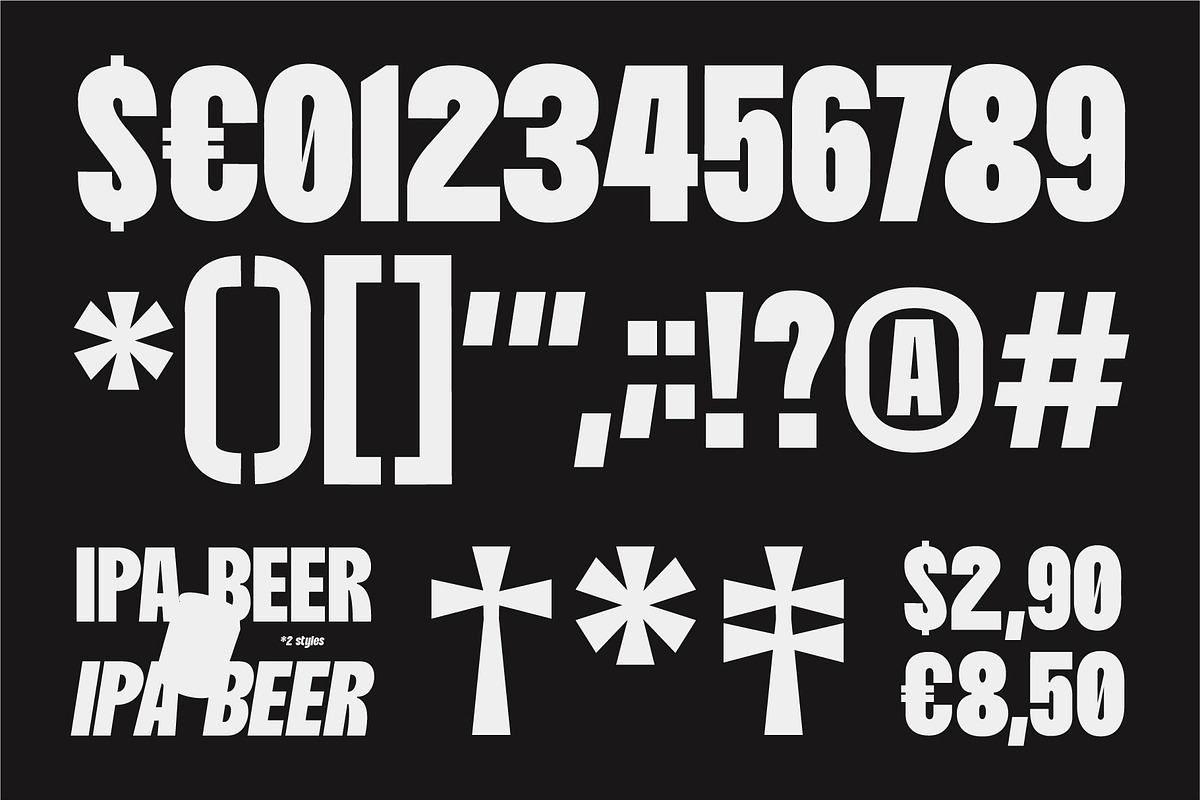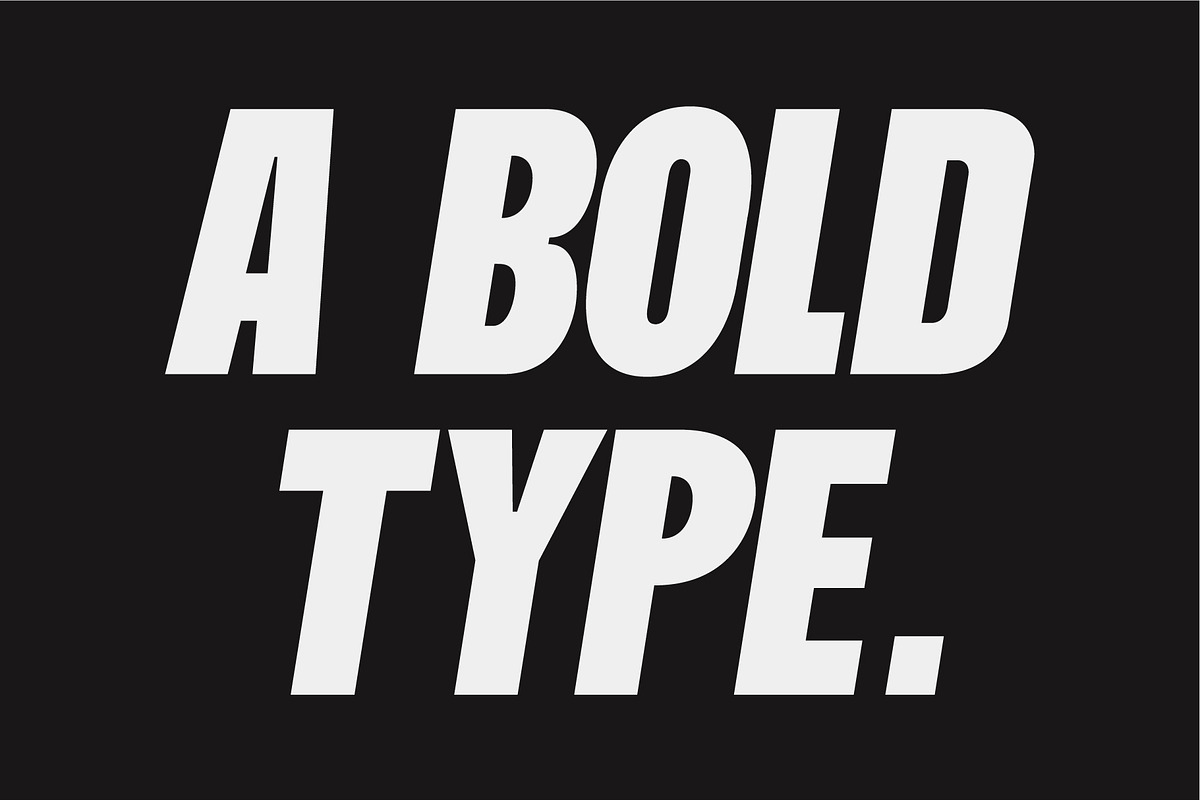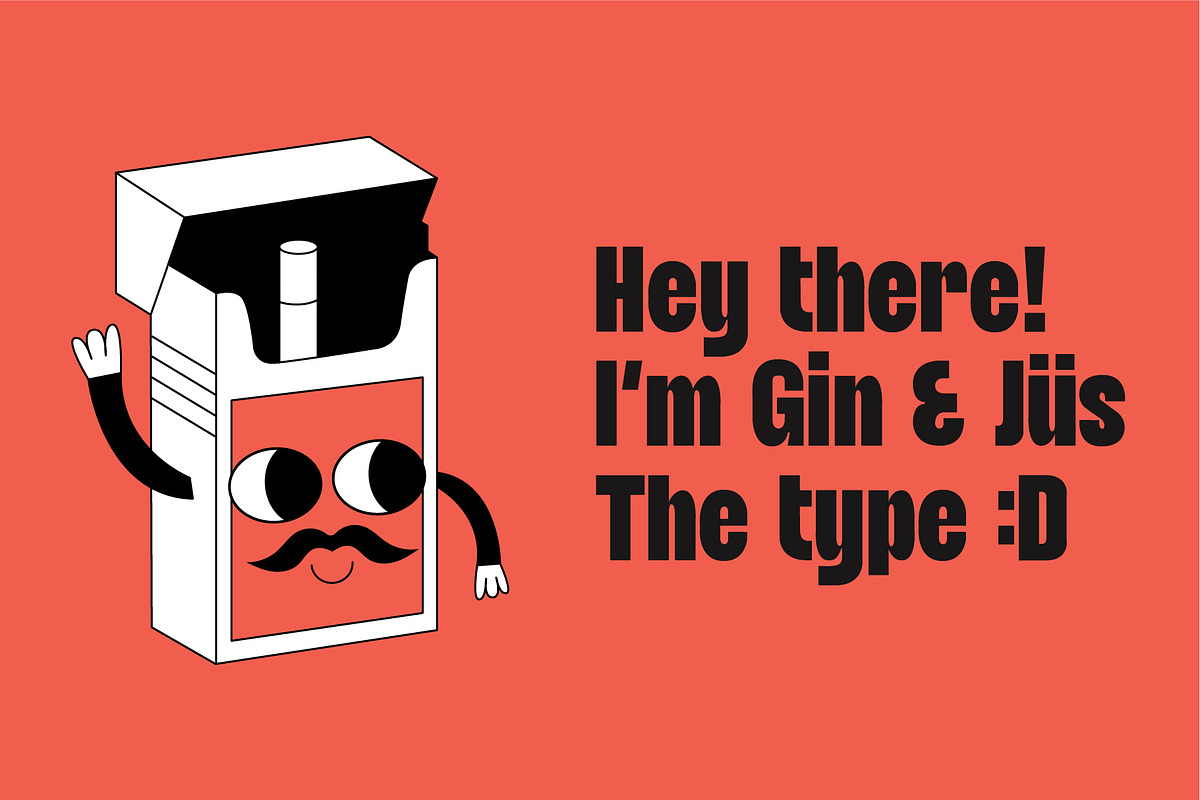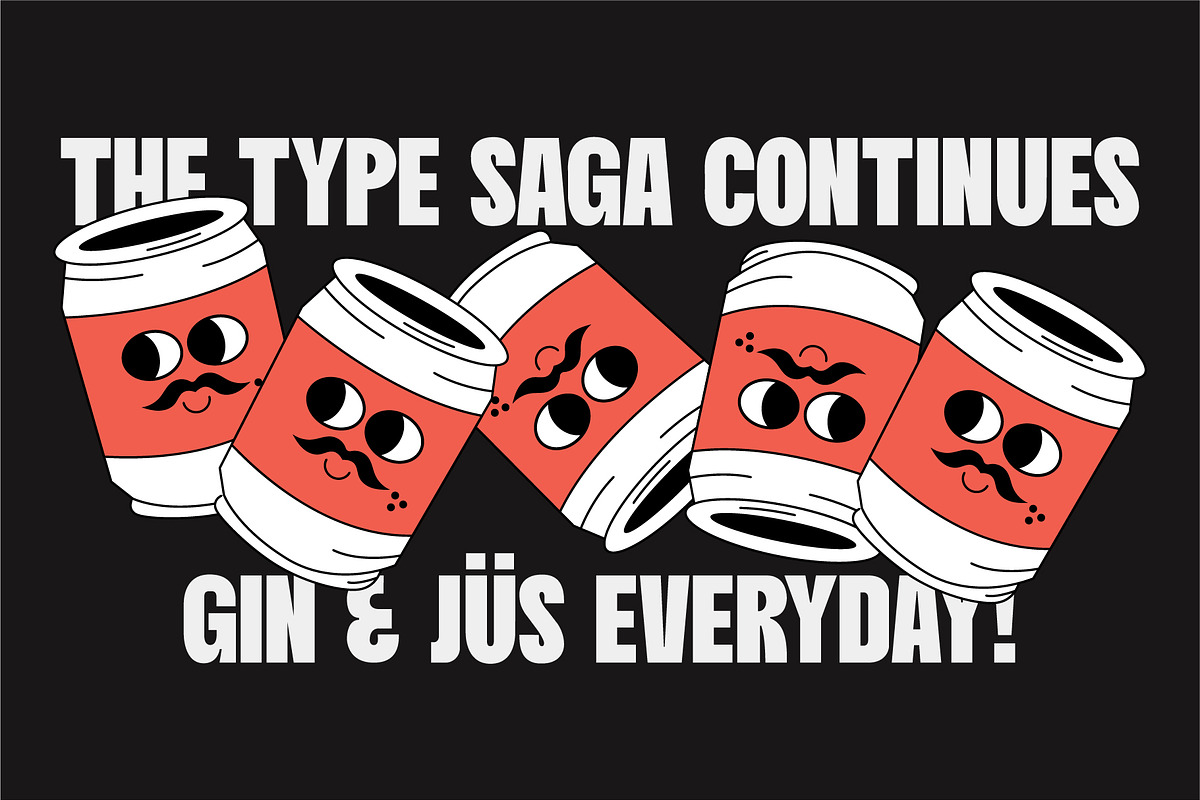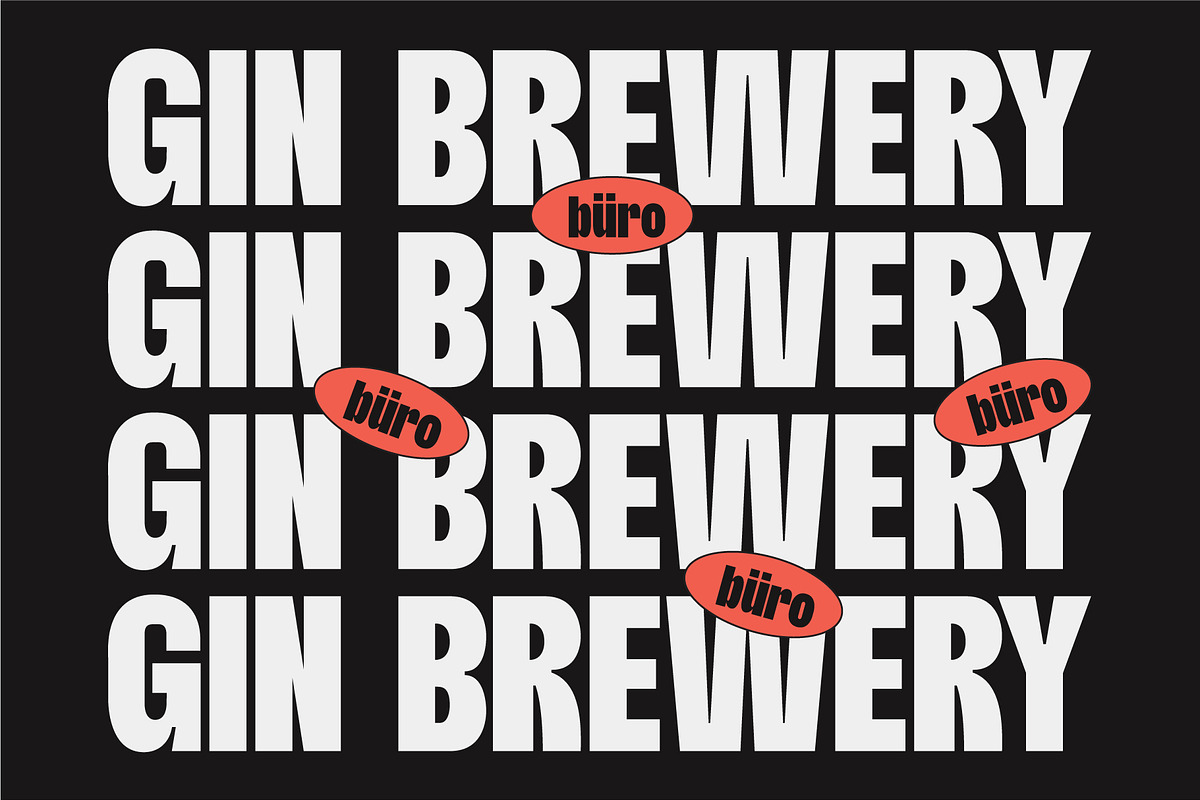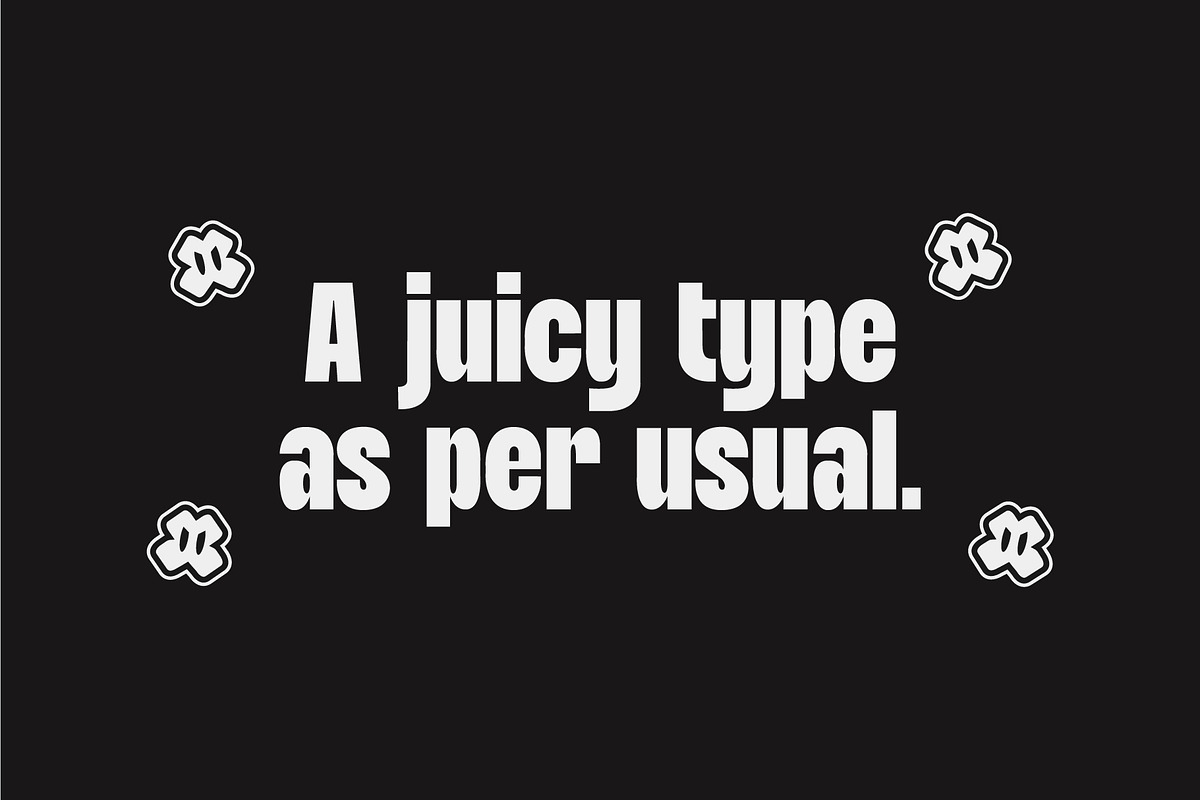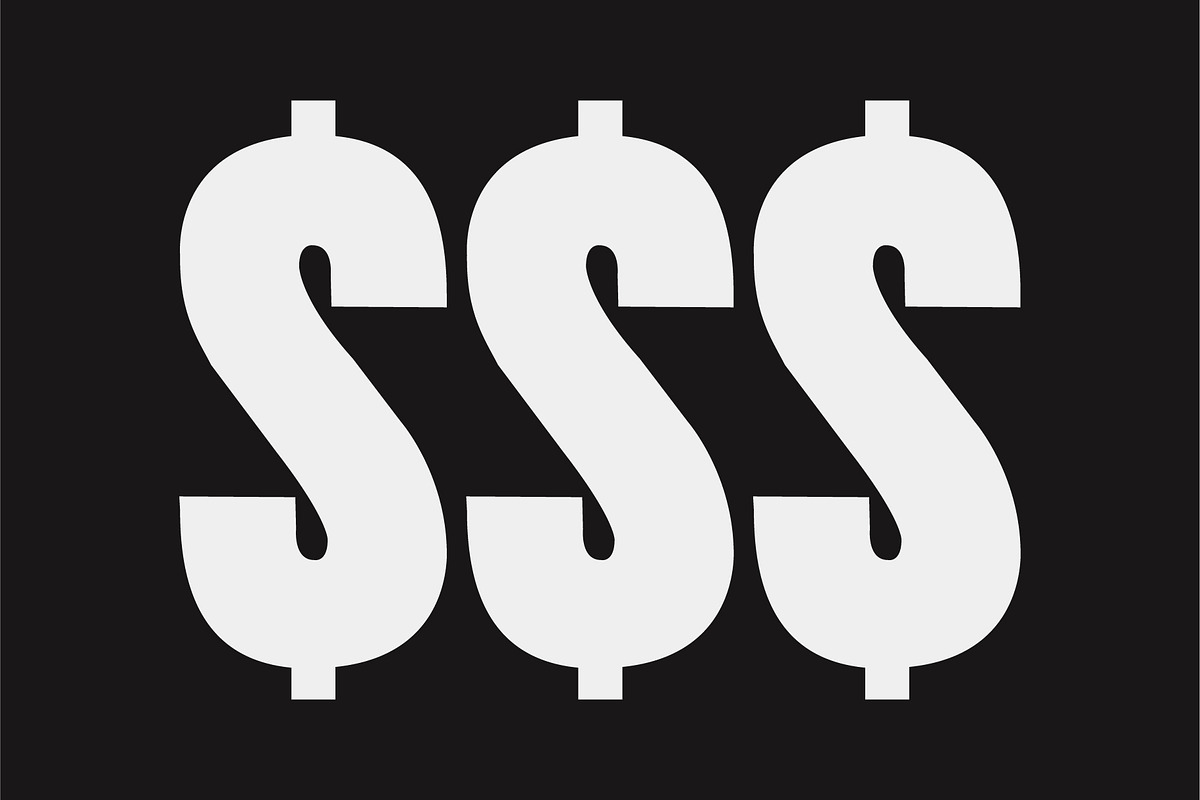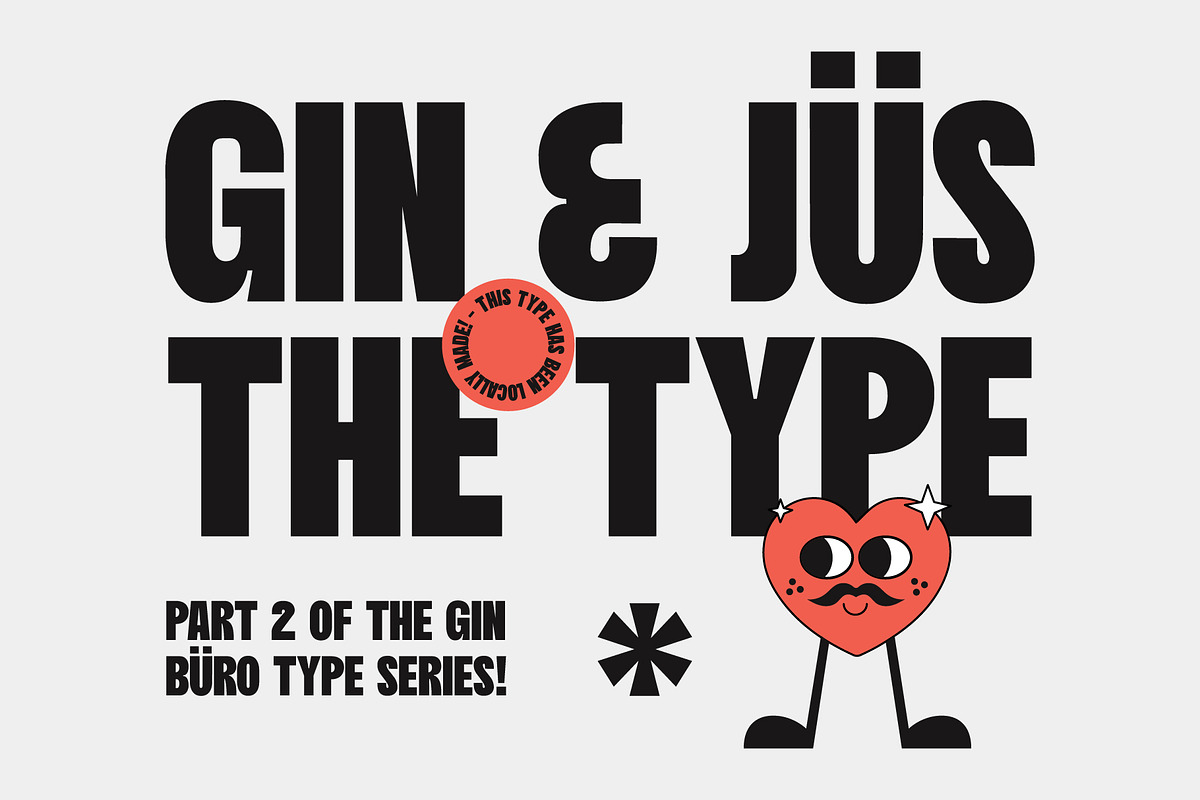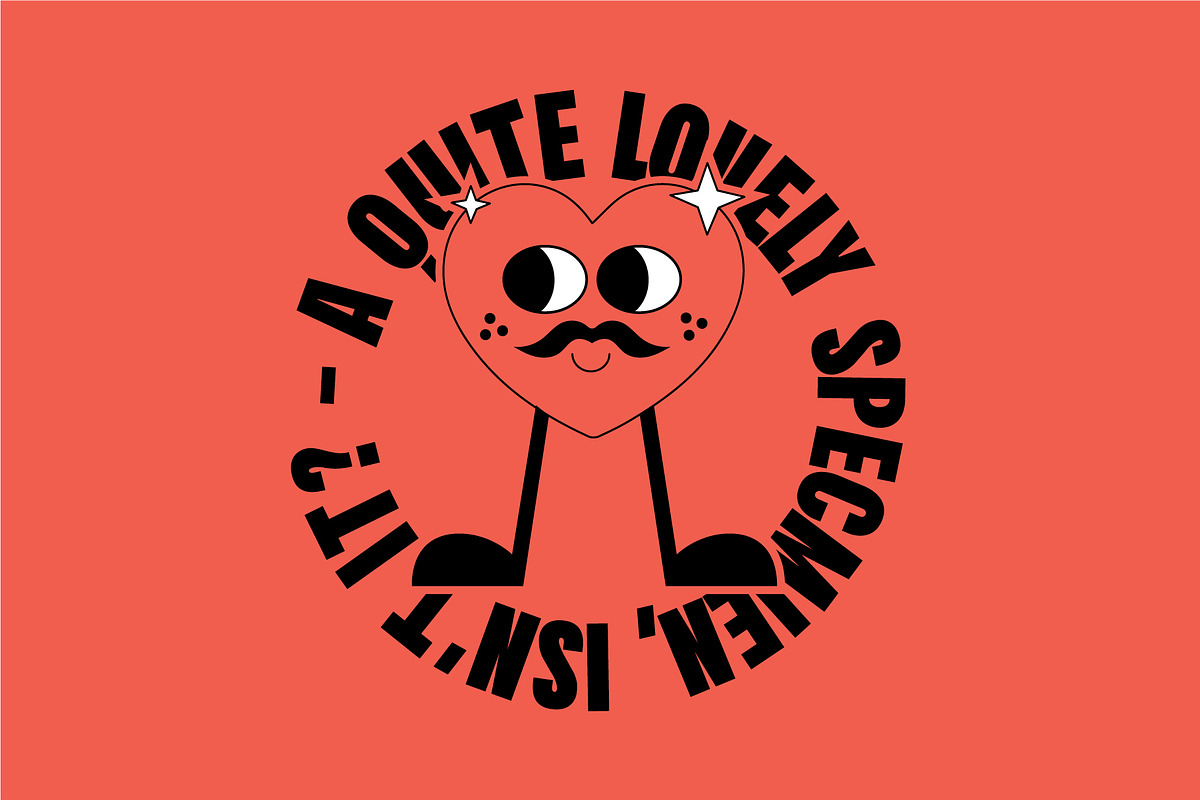
Gin & Jüs - Display Type
Gin & Jüs type is the latest piece released from the Gin series! It is a type shifting more towards the display vibes but could pretty much fit anywhere. The inspiration for this type is the general feel that Gin Büro portrays, wanting to show those elements via typography.
The type is available in 1 weight & 2 styles ☺